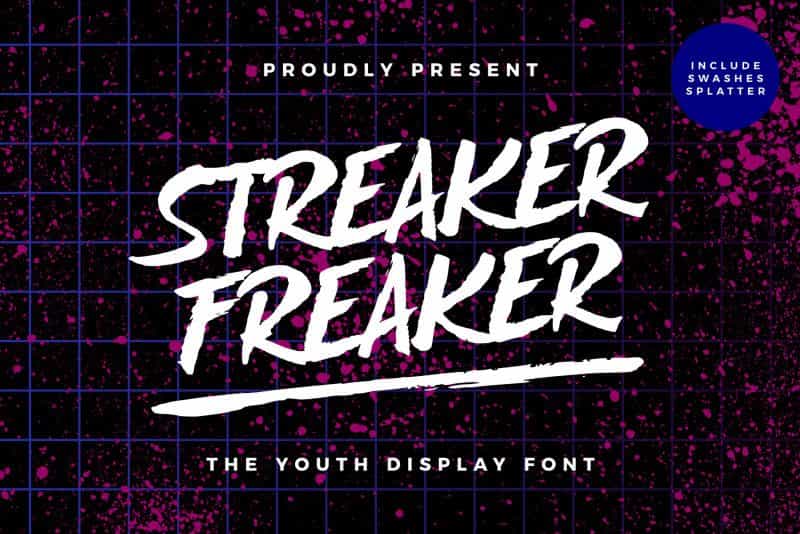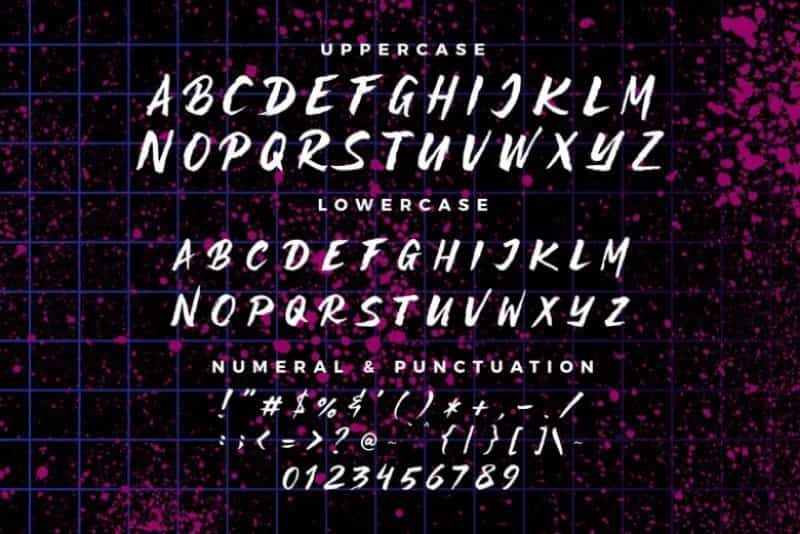
Discover Streaker Font, part of the Brush collection—a versatile and unique font perfect for adding a personal touch to your projects. Download it for free and enjoy crafting designs with style, from invitations to social media posts. This font is available exclusively for personal use, giving you the freedom to create without limits. Unlock your creativity with Streaker Font today!
Nor any period could be spoken to less advantage–this brush lettering has moved through a number of commercial enterprises already. For example, t shirts, hoodies and accessories: logos menus brand promotions all require that something a little extra: a touch of life for each word written on them.